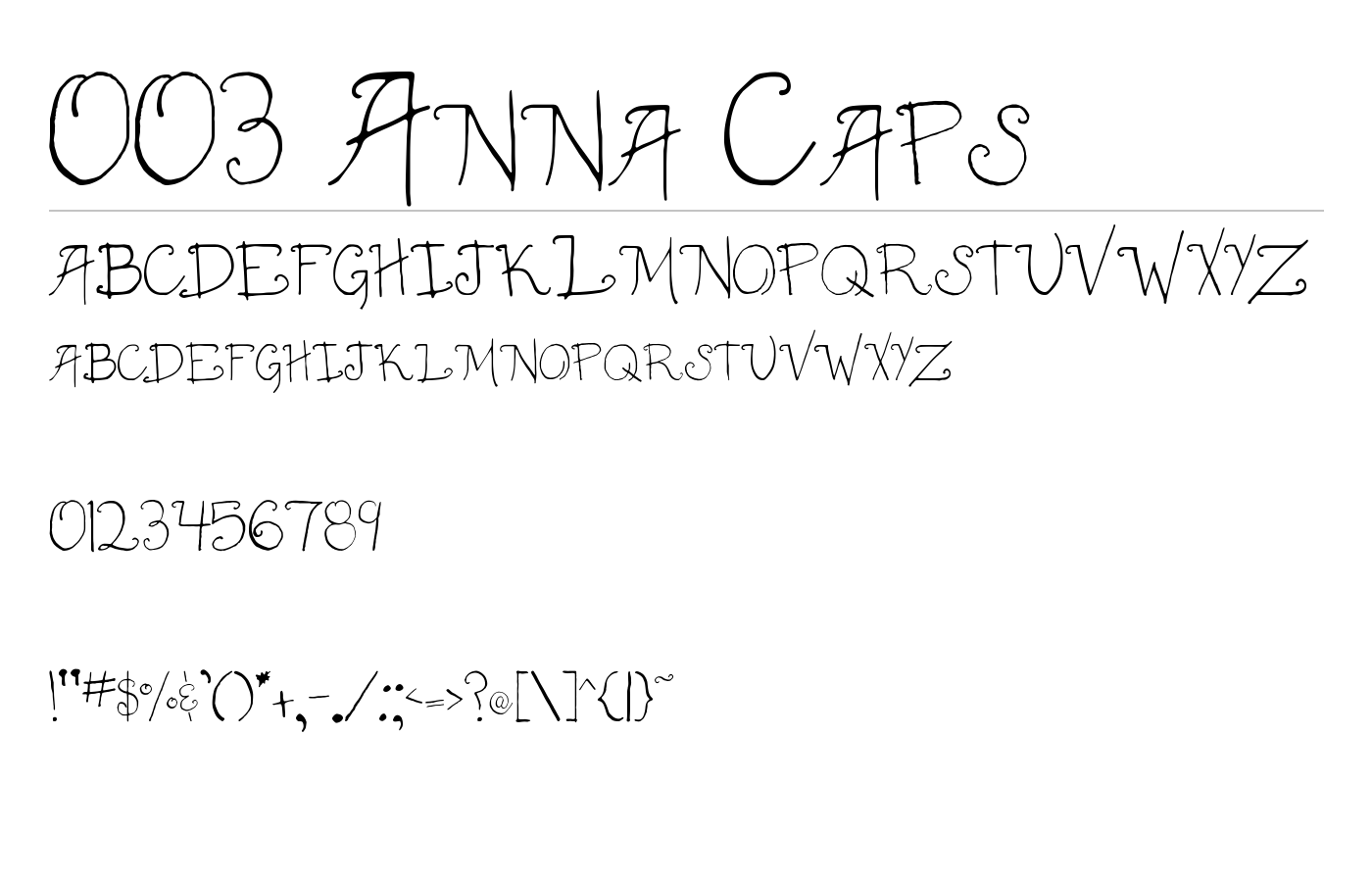
003 Anna Caps Font is a delicate and whimsical handwritten sans serif with a quirky, artistic flair. Its thin, uneven strokes and playful loops create an informal and creative vibe, making it ideal for projects seeking a light, charming, and personal touch. This font works well for invitations, branding, and casual editorial uses where a unique and approachable style is desired.
003 Anna Caps Font
About 003 Anna Caps Font